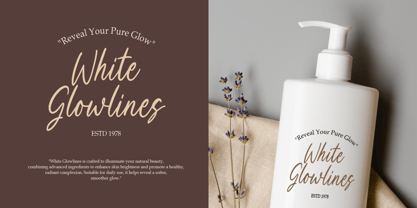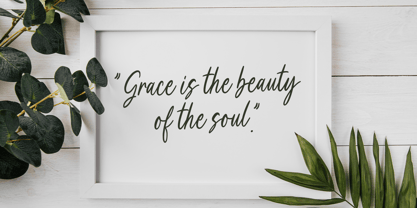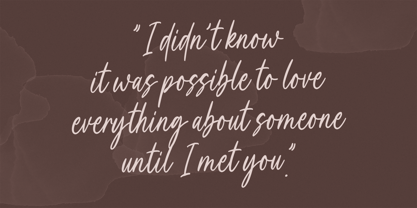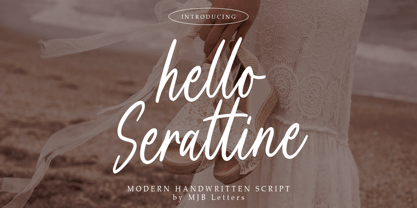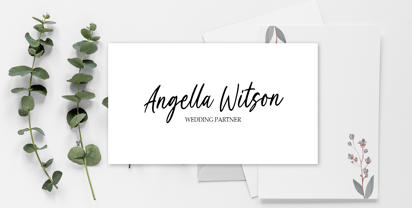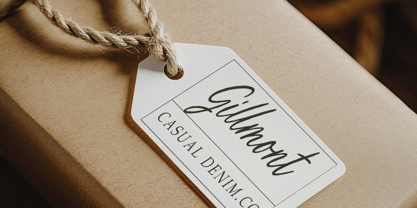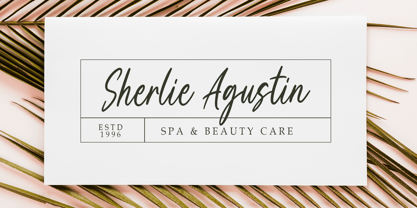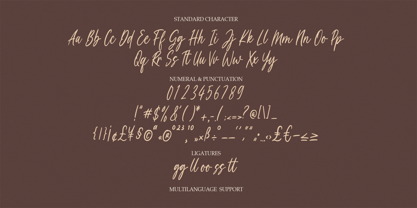
Hello Serattine
by MJB Letters
The Hello Serattine Font Family was designed by Muhammad Mujibulloh and published by MJB Letters. Hello Serattine contains 1 styles.
Hello Serattine is a charming handwritten script font that exudes warmth and a personal touch. Its flowing, smooth strokes give it a friendly, modern appeal, making it perfect for a variety of creative applications. This font is ideal for projects that require an intimate, stylish feel, such as wedding invitations, greeting cards, branding materials, and social media posts. With its delightful, hand-crafted style, Hello Serattine also shines in packaging designs, product labels, and personal logos, adding a touch of elegance and individuality to any design.Hello Serattine is a charming handwritten script font that exudes warmth and a personal touch. Its flowing, smooth strokes give it a friendly, modern appeal, making it perfect for a variety of creative applications. This font is ideal for projects that require an intimate, stylish feel, such as wedding invitations, greeting cards, branding materials, and social media posts. With its delightful, hand-crafted style, Hello Serattine also shines in packaging designs, product labels, and personal logos, adding a touch of elegance and individuality to any design.